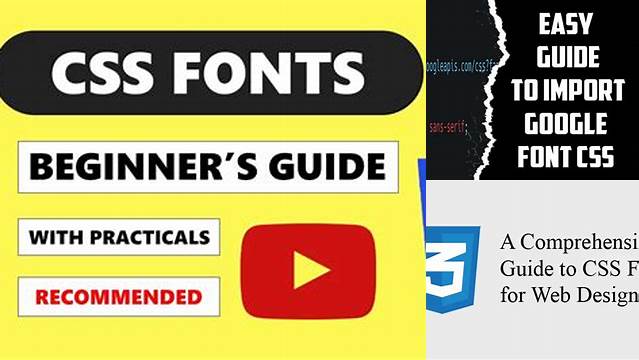
CSS Fonts: A Guide To Google Fonts
Hey guys! Ever wondered how to make your website pop with the perfect fonts? Well, you've come to the right place! In this guide, we're diving deep into the world of fonts for CSS Google, exploring everything from choosing the right typeface to implementing it flawlessly. Get ready to transform your website's look and feel!
1. Understanding Google Fonts and CSS
So, what are Google Fonts anyway? Fonts for CSS Google refers to the extensive library of free and open-source fonts provided by Google. These fonts can be easily integrated into your website using CSS, allowing you to use a wide variety of typefaces without having to host the font files yourself. This not only saves you bandwidth but also ensures that your fonts are delivered quickly and efficiently through Google's global CDN (Content Delivery Network). Using Google Fonts with CSS involves linking the font from Google's server in your HTML file and then specifying the font-family in your CSS rules. For example, to use the popular 'Roboto' font, you would add a <link> tag in your HTML's <head> section and then use font-family: 'Roboto', sans-serif; in your CSS. This tells the browser to use Roboto if it's available, and if not, to fall back to a generic sans-serif font. The beauty of using Google Fonts is its simplicity and accessibility. It eliminates the need for complex font embedding techniques and ensures that your website's typography is consistent across different browsers and devices. Choosing the right font can significantly impact the readability and visual appeal of your website, making it a crucial aspect of web design. With Google Fonts, you have a vast selection to choose from, allowing you to find the perfect font to match your brand and style. Remember to consider factors like font weight, style (italic, bold), and character set when selecting your fonts to ensure they render correctly in different languages and scenarios. By mastering the basics of Google Fonts and CSS, you can create stunning websites with professional typography that enhances the user experience.
2. Benefits of Using Google Fonts in CSS
There are tons of awesome reasons to use fonts for CSS Google. First off, they're free! Who doesn't love free stuff, especially when it can make your website look like a million bucks? Beyond the price tag, Google Fonts offer incredible ease of use. You don't have to worry about hosting font files or dealing with complicated licensing issues. Google takes care of all that for you, so you can focus on designing a killer website. Plus, Google Fonts are designed to load super-fast. They're hosted on Google's global CDN, which means they're delivered to your visitors from the server closest to them, resulting in faster page load times. This is crucial for keeping your visitors engaged and improving your search engine rankings. Another major benefit is cross-browser compatibility. Google Fonts are designed to work seamlessly across all major browsers, ensuring that your website looks consistent no matter what device or browser your visitors are using. This eliminates the headaches of dealing with browser-specific font rendering issues. Furthermore, Google Fonts offer a wide variety of font styles to choose from, including different weights, styles (italic, bold), and character sets. This gives you the flexibility to create unique and visually appealing designs that stand out from the crowd. And because Google Fonts are constantly being updated and improved, you can be sure that you're always using the latest and greatest fonts available. Finally, using Google Fonts can also improve your website's accessibility. By choosing fonts that are easy to read and have good contrast, you can make your website more accessible to users with visual impairments. This not only improves the user experience but also helps you comply with accessibility guidelines and regulations. In short, using Google Fonts in CSS is a no-brainer. It's free, easy to use, fast, compatible, and offers a wide variety of font styles to choose from. So why not give it a try and see how it can transform your website's look and feel?
3. How to Link Google Fonts in HTML
Linking fonts for CSS Google in your HTML is a piece of cake! There are two main ways to do it, and both are super simple. The first method is using the <link> tag. Head over to the Google Fonts website, find the font you love, and copy the provided <link> code. Then, paste that code into the <head> section of your HTML file. Make sure to place it before your CSS stylesheet link. This tells the browser to load the font before it starts rendering the page, ensuring that your text is displayed correctly from the get-go. The second method is using the @import rule in your CSS file. Again, grab the @import code from the Google Fonts website and paste it at the very top of your CSS file. This tells the browser to load the font when it encounters the @import rule. While this method is also straightforward, it's generally recommended to use the <link> tag method because it's more efficient and can help improve your website's loading speed. When linking Google Fonts, you can also specify multiple font weights and styles in a single <link> tag. This can help reduce the number of HTTP requests and improve performance. For example, you can specify both regular and bold weights of a font by adding font-weight: 400,700 to the <link> tag. Remember to always test your website after linking Google Fonts to ensure that the fonts are rendering correctly and that there are no conflicts with your existing CSS styles. You can use browser developer tools to inspect the font styles and make sure that the correct font is being applied. And that's all there is to it! Linking Google Fonts in HTML is a simple process that can greatly enhance your website's typography and visual appeal.
4. Implementing Google Fonts in CSS Stylesheets
Okay, so you've linked your fonts for CSS Google in your HTML, now what? It's time to put those fonts to work in your CSS stylesheets! To implement a Google Font, you simply use the font-family property in your CSS rule. For example, if you're using the 'Open Sans' font, you would write font-family: 'Open Sans', sans-serif; in your CSS. This tells the browser to use 'Open Sans' if it's available, and if not, to fall back to a generic sans-serif font. You can apply Google Fonts to specific elements, like headings, paragraphs, or even the entire body of your website. For example, to apply 'Open Sans' to all headings, you would write h1, h2, h3, h4, h5, h6 { font-family: 'Open Sans', sans-serif; }. You can also use Google Fonts in combination with other CSS properties to create unique and visually appealing designs. For example, you can adjust the font size, line height, letter spacing, and text color to achieve the desired effect. When implementing Google Fonts, it's important to consider the font weight and style. Google Fonts offer a variety of font weights, such as 300 (light), 400 (regular), 700 (bold), and 900 (black). You can specify the font weight using the font-weight property in CSS. Similarly, you can specify the font style (italic or normal) using the font-style property. Remember to always test your website after implementing Google Fonts to ensure that the fonts are rendering correctly and that there are no conflicts with your existing CSS styles. You can use browser developer tools to inspect the font styles and make sure that the correct font is being applied. And that's all there is to it! Implementing Google Fonts in CSS stylesheets is a simple process that can greatly enhance your website's typography and visual appeal.
5. Best Practices for Using Google Fonts
Using fonts for CSS Google is awesome, but there are some best practices you should keep in mind to make sure you're using them effectively. First and foremost, choose fonts that are readable. Fancy fonts might look cool, but if they're hard to read, they'll just frustrate your visitors. Stick to fonts that are clear and easy on the eyes. Another important tip is to limit the number of fonts you use. Using too many fonts can make your website look cluttered and unprofessional. A good rule of thumb is to use no more than three different fonts on your website. Also, consider font pairing. Some fonts just look better together than others. Experiment with different font combinations to find what works best for your website's design. You can use online tools and resources to help you find complementary font pairings. Another best practice is to optimize font loading. As mentioned earlier, loading too many font weights and styles can slow down your website. Only load the font weights and styles that you actually need. You can also use font display options to control how fonts are displayed while they're loading. For example, you can use the font-display: swap; property to tell the browser to display a fallback font while the Google Font is loading, and then swap it in once it's ready. This can help improve the perceived performance of your website. Finally, remember to test your website on different devices and browsers to ensure that your fonts are rendering correctly. Different browsers and devices may render fonts differently, so it's important to test your website thoroughly to catch any issues. By following these best practices, you can ensure that you're using Google Fonts effectively and creating a website that looks great and performs well.
6. Choosing the Right Font Weight and Style
Choosing the right font weight and style is crucial for creating a visually appealing and readable website. With fonts for CSS Google, you have a wide range of options to choose from, so it's important to understand the different weights and styles and how they can impact your design. Font weight refers to the thickness of the font. Common font weights include 300 (light), 400 (regular), 700 (bold), and 900 (black). The appropriate font weight depends on the context in which the font is being used. For example, you might use a lighter font weight for body text to improve readability, and a heavier font weight for headings to make them stand out. Font style refers to whether the font is italic or normal. Italic fonts can be used to emphasize certain words or phrases, or to create a more elegant and sophisticated look. However, it's important to use italic fonts sparingly, as they can be more difficult to read than normal fonts. When choosing font weights and styles, it's important to consider the overall design of your website and the message you're trying to convey. For example, if you're designing a website for a luxury brand, you might choose a font with a lighter weight and an italic style to create a sense of elegance and sophistication. On the other hand, if you're designing a website for a tech company, you might choose a font with a heavier weight and a normal style to create a sense of strength and innovation. It's also important to consider the readability of your fonts when choosing font weights and styles. Make sure that the font is easy to read on different devices and screen sizes. You can use online tools and resources to test the readability of your fonts and make sure that they're accessible to all users. By carefully choosing the right font weight and style, you can create a website that is both visually appealing and easy to read.
7. Pairing Google Fonts for Visual Harmony
Font pairing is an art, guys! Choosing the right font combinations can make or break your website's design. With fonts for CSS Google, the possibilities are endless, but it's important to choose fonts that complement each other and create a sense of visual harmony. A good starting point is to choose a font for your headings and a different font for your body text. This can help create a clear visual hierarchy and make your website more readable. When pairing fonts, consider the following factors: Contrast: Choose fonts that have enough contrast to be easily distinguishable from each other. For example, you might pair a serif font with a sans-serif font to create a strong contrast. Complementarity: Choose fonts that complement each other in terms of style and personality. For example, you might pair a classic serif font with a modern sans-serif font to create a balanced and harmonious look. Readability: Make sure that both fonts are easy to read on different devices and screen sizes. Avoid pairing fonts that are too similar or too difficult to read. There are many online tools and resources that can help you find complementary font pairings. These tools often provide suggestions based on font characteristics and design principles. You can also experiment with different font combinations to find what works best for your website's design. Some popular font pairings include: Open Sans and Montserrat: A classic sans-serif pairing that is clean, modern, and highly readable. Roboto and Slabo 27px: A versatile pairing that works well for both headings and body text. Playfair Display and Montserrat: An elegant pairing that combines a serif font with a modern sans-serif font. By carefully pairing your Google Fonts, you can create a website that is visually appealing, easy to read, and reflects your brand's personality.
8. Optimizing Google Fonts for Website Speed
Website speed is crucial, and fonts for CSS Google can sometimes impact it. But fear not, there are ways to optimize your fonts for faster loading times! First, only load the font weights and styles that you actually need. Loading unnecessary font weights and styles can significantly increase the size of your font files and slow down your website. Use Google Fonts' font selection tool to choose only the weights and styles that you're using in your design. Another optimization technique is to use font display options. The font-display property allows you to control how fonts are displayed while they're loading. The font-display: swap; property tells the browser to display a fallback font while the Google Font is loading, and then swap it in once it's ready. This can help improve the perceived performance of your website. You can also preload your Google Fonts to make them load even faster. Preloading tells the browser to download the font files as early as possible, which can reduce the time it takes for the fonts to be displayed. To preload a Google Font, add a <link> tag with the `rel=